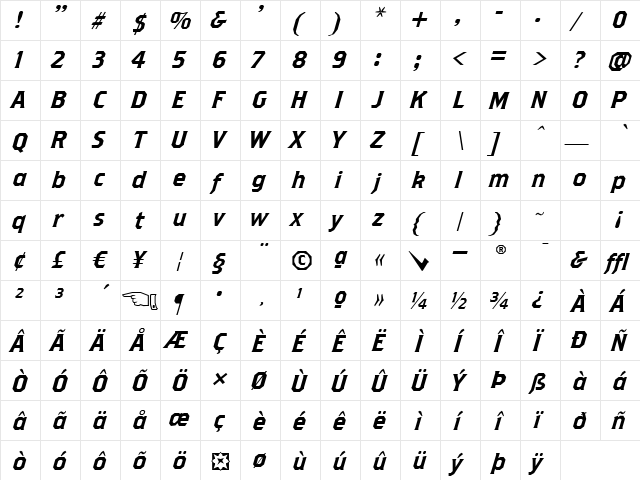
BrothersSuperSlant Regular
Design Context for BrothersSuperSlant Typeface
BrothersSuperSlant offers clean, dependable letterforms without strong stylistic allegiance, making it a practical choice for designers who need flexibility.